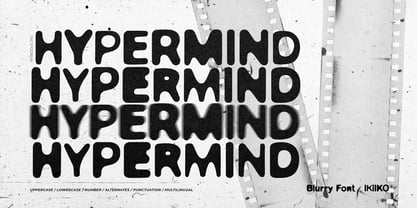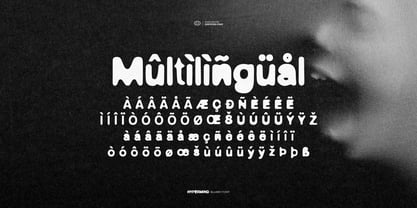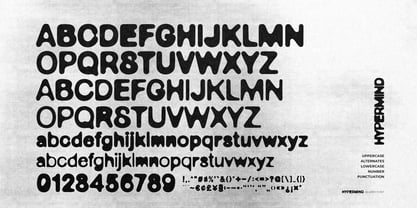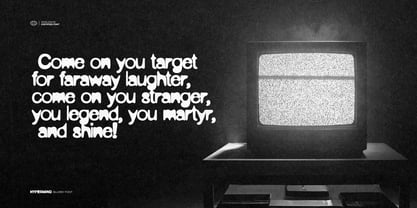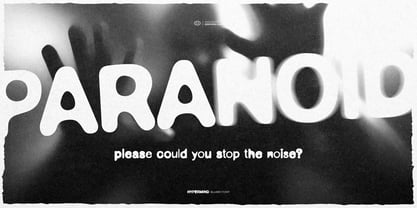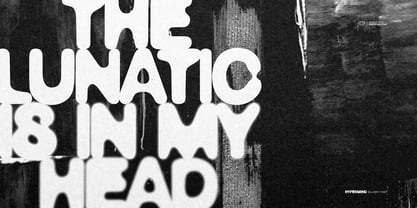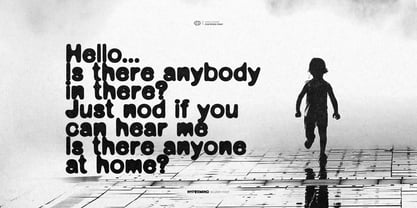
Hypermind
von IKIIKOWRK
Die Schriftfamilie Hypermind wurde von Andhika Pradana entworfen und von IKIIKOWRK veröffentlicht. Hypermind enthält 1 Stile. Mehr über diese Familie
Proudly Present Hypermind - Blurry Font, created by ikiiko Hypermind is a bold, experimental typeface born from visual distortion and altered perception. This blurry, hallucinated, and slightly paranoid font captures the raw energy of ink bleed style typography—where edges melt, forms vibrate, and letters feel alive. Designed for creators who crave chaos with control, Hypermind pushes beyond clean geometry into a world of organic blur and subconscious visuals. Each glyph is crafted with ink bleed style textures that mimic overprinted ink, photocopy noise, and analog imperfections. The built-in alternates allow you to switch characters and create an even more blurried, unstable look—perfect for designs that need movement, tension, and visual overload. The result is a font that feels trippy, edgy, and unapologetically experimental. Hypermind is ideal for hipster branding, underground posters, poster event, editorial headlines, streetwear graphics, and anything that needs a blurry hallucinated aesthetic with strong personality. What's Included? Uppercase & Lowercase Numbers & Punctuation Alternates Multilingual Support Works on PC & Mac Get also a good offer & FREEBIE at our site Enjoy our font and if you have any questions, you can contact us by email
Designer: Andhika Pradana
Foundry: IKIIKOWRK